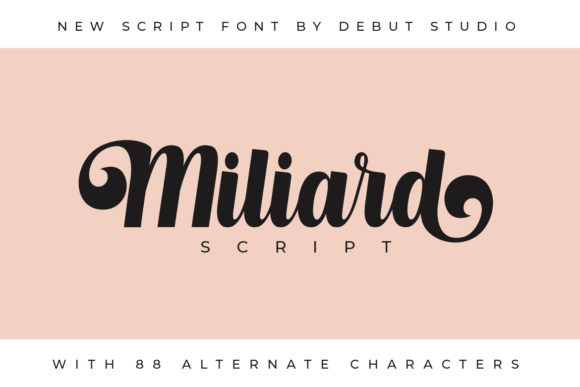
Step into a world of elegance and creativity with the Milliard Script Font, an enchanting script font that captivates hearts with its unique style. Crafted by the skilled hands of Debut Studio, this font exudes sophistication and charm, adding a touch of individuality to any design project.
With its graceful curves and sweeping strokes, the Milliard Script Font dances across your screen, telling tales of love, joy, and inspiration. Let your imagination soar as you explore its limitless potential, from creating enchanting wedding invitations to designing mesmerizing logos that leave an unforgettable impression.
Express your heartfelt emotions with the Milliard Script Font, a font that speaks volumes. Pour your creativity onto the page as you unveil the beauty of hand-lettering, crafting personalized quotes, poems, and heartfelt messages that resonate with your audience.
Harness the power of the Milliard Script Font to transform your designs into captivating masterpieces. Unveil the allure of branding, where your logo and marketing materials shine with a distinctive personality that sets you apart from the crowd. Capture the essence of timeless elegance in your invitations and stationery, leaving a lasting impression on your guests.
Dive into the world of digital artistry with the Milliard Script Font, where your online presence takes on a new level of enchantment. Create captivating social media posts, eye-catching blog headers, and visually stunning websites that captivate your audience with their charm and beauty.
With the Milliard Script Font, the possibilities are endless. Let your creativity blossom as you embrace the beauty of script typography, leaving a trail of elegance and inspiration in your wake. Embrace the art of hand-lettering and unlock the full potential of your imagination.